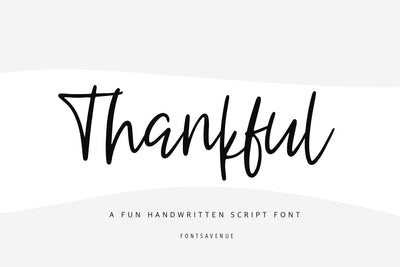
Thankful | Clean Handwritten Script Font
Thankful is a clean handwritten script font, perfect for invitations, logo design, branding, product packaging, quotes and much more!
Features
- Uppercase and lowercase letters
- Accented characters